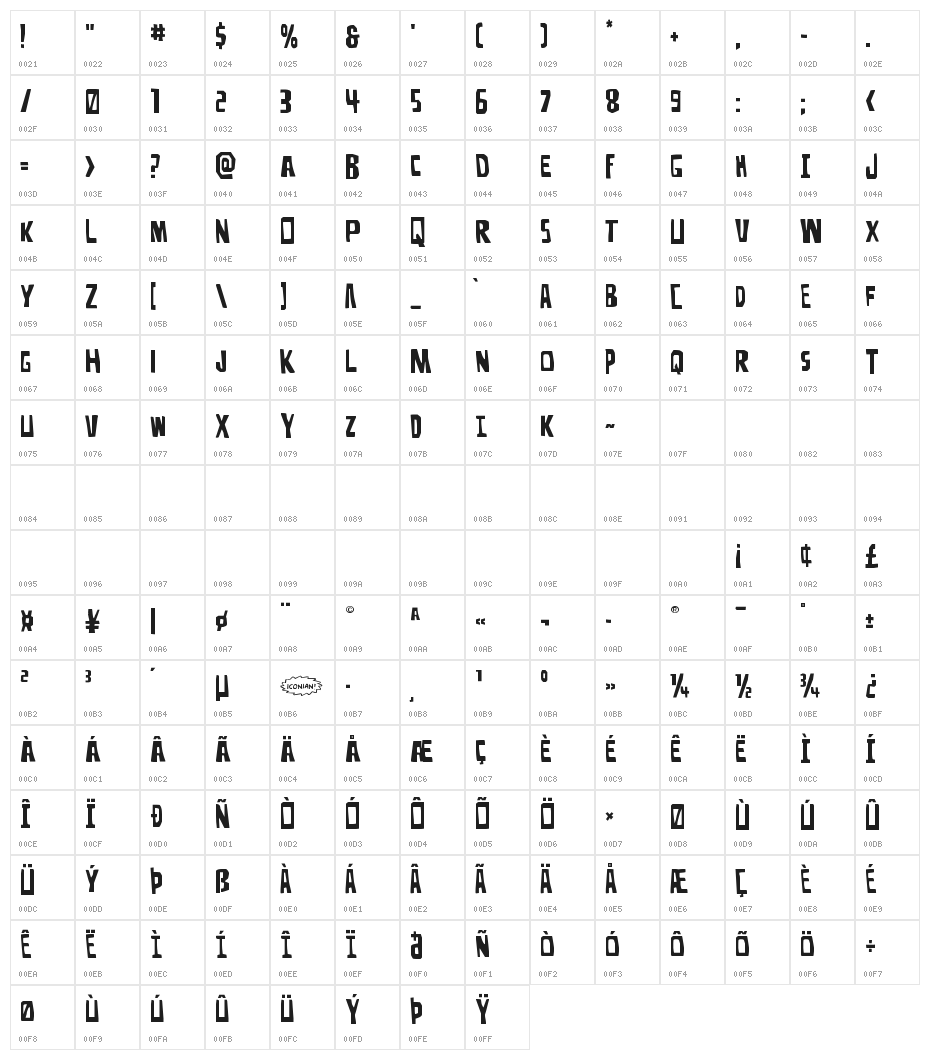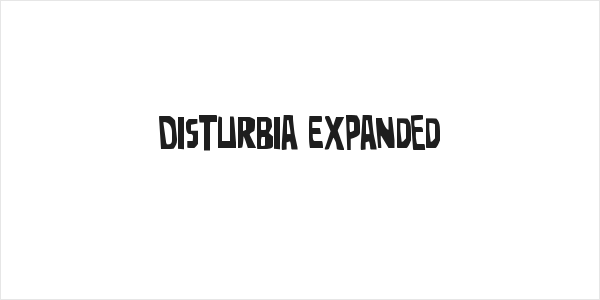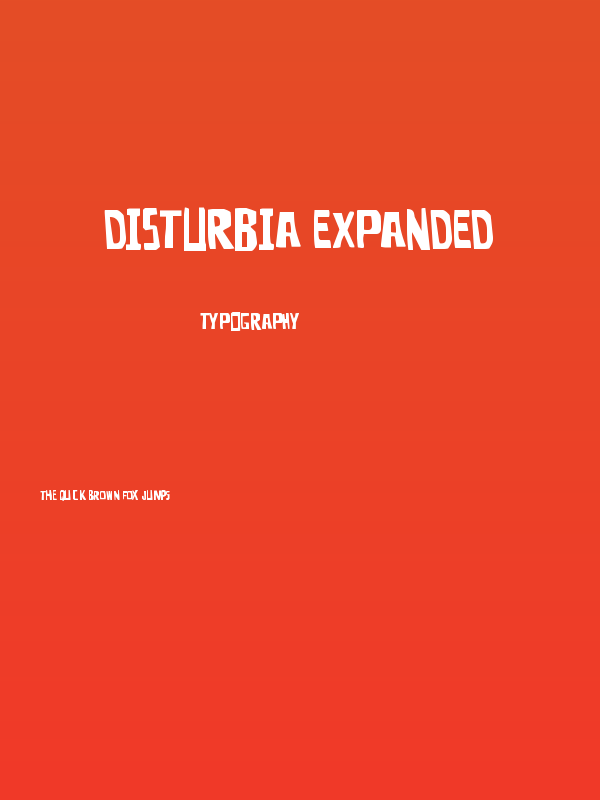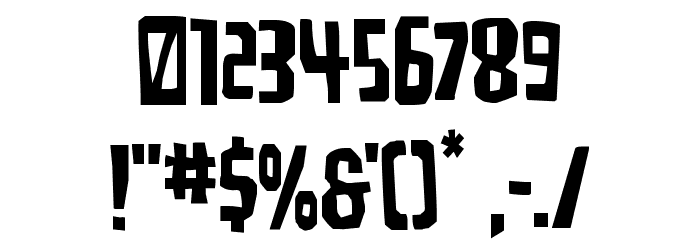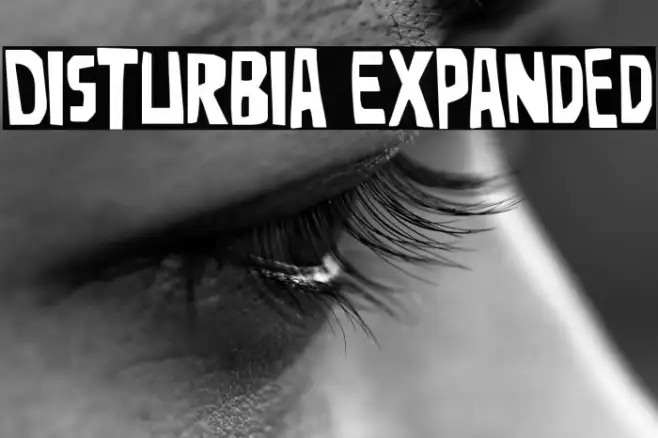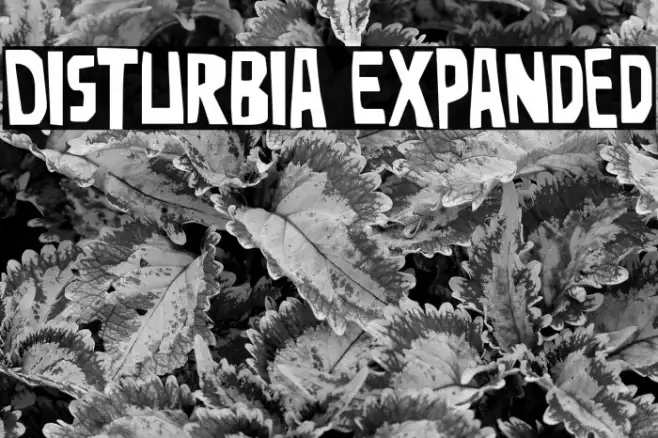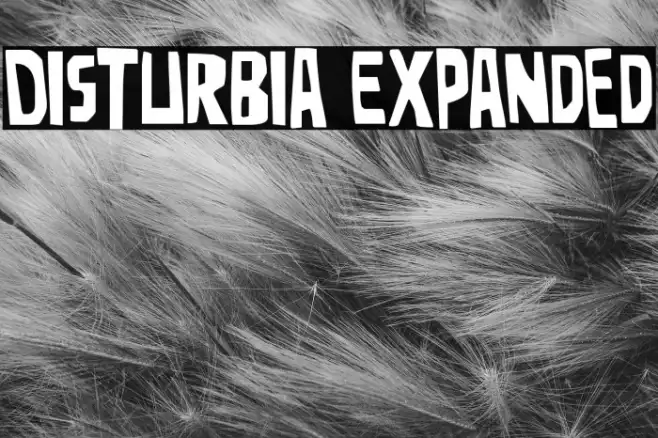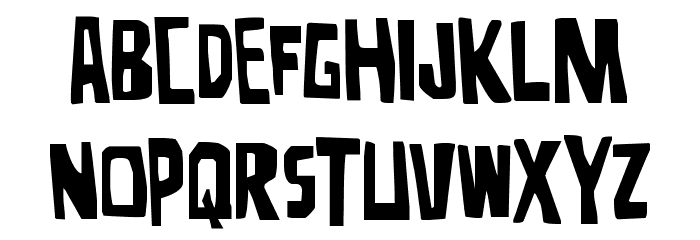
Disturbia Expanded Font
Disturbia Expanded Description
This font features a bold and dynamic style with an expanded width, giving it a strong and impactful presence. The characters have an irregular, slightly distorted appearance, adding a sense of movement and energy. The uppercase letters are particularly striking, with sharp angles and varying line thicknesses that create a unique visual rhythm. The numerals and special characters maintain this bold and playful aesthetic, making the font suitable for attention-grabbing designs. Its distinctive style is perfect for projects that require a touch of creativity and boldness.
| Proposed Projects | Ideal for posters, album covers, branding, and any design needing a bold, creative touch. |